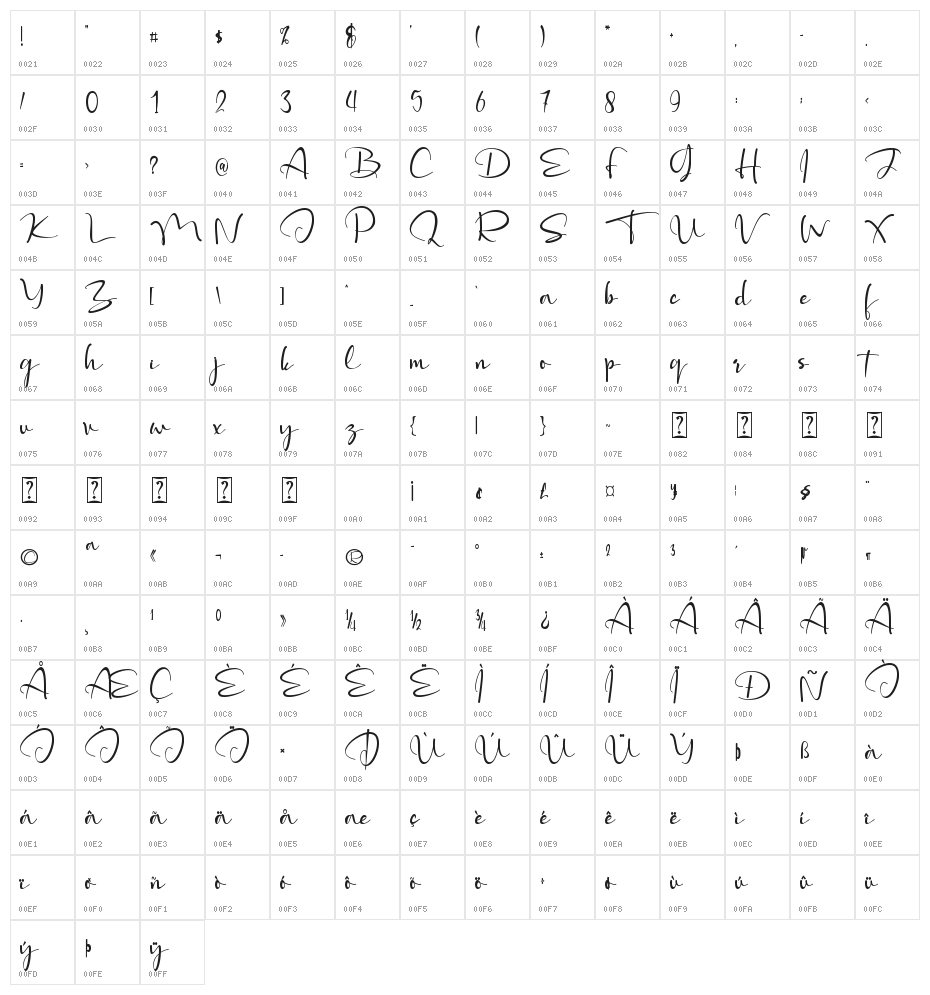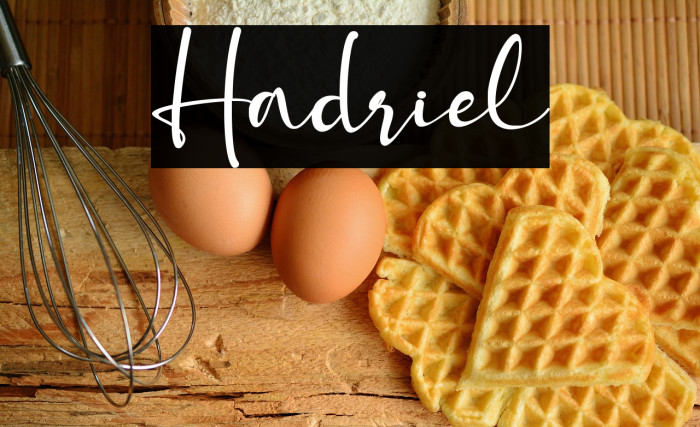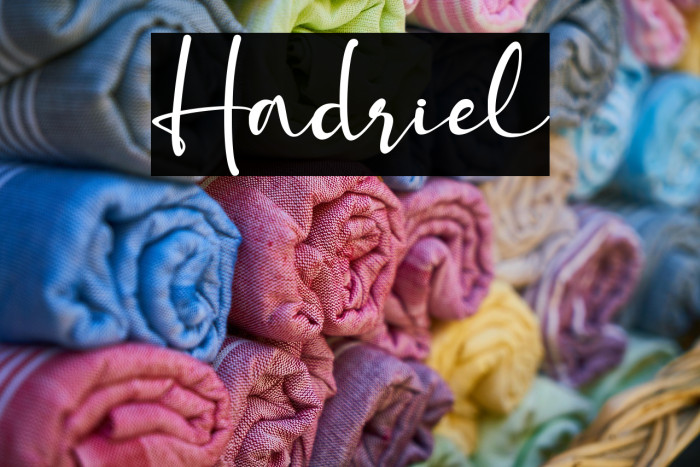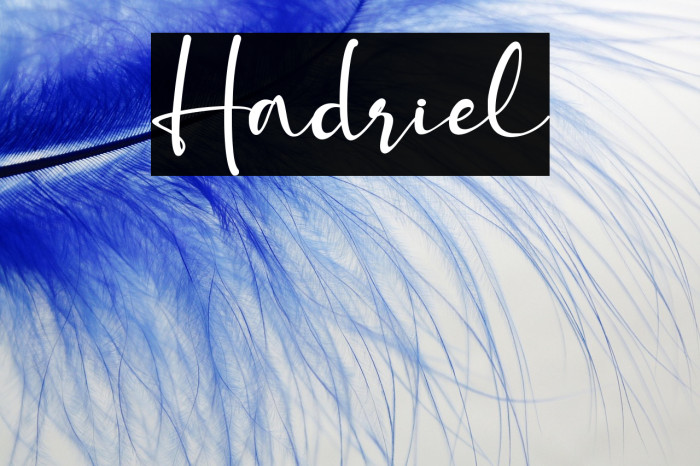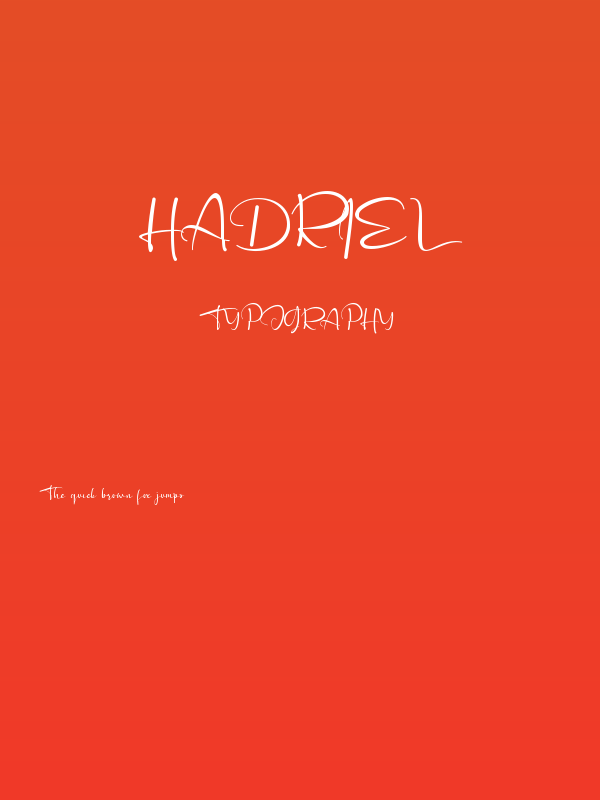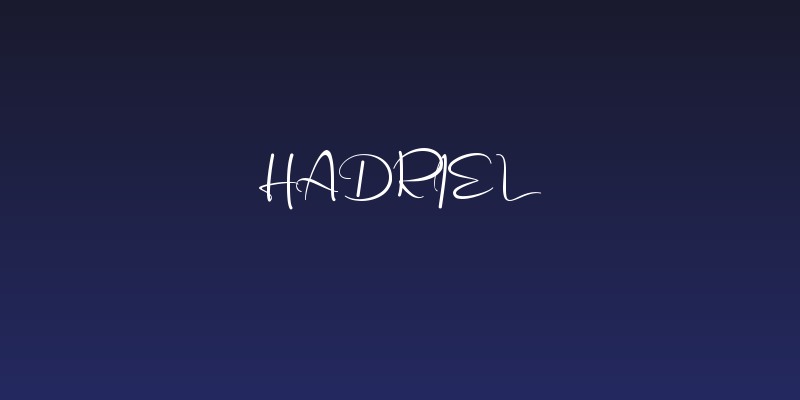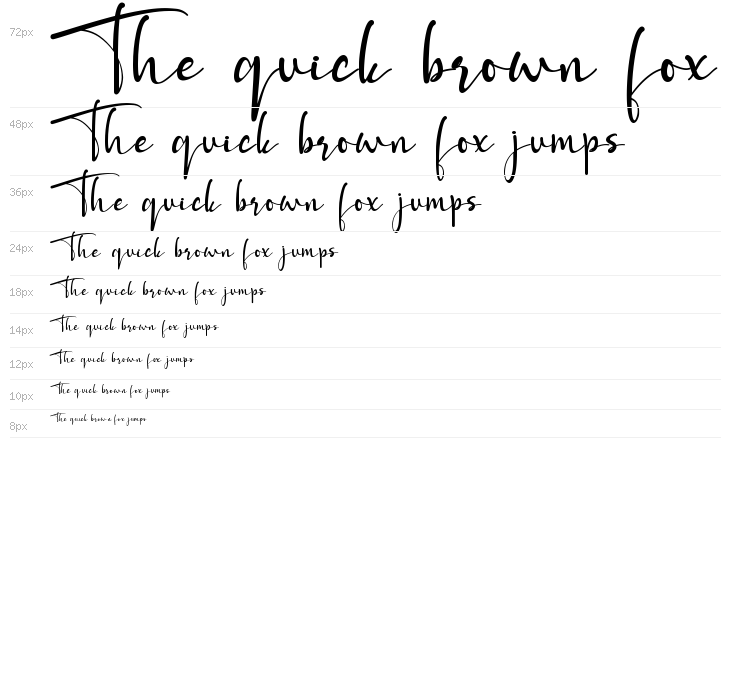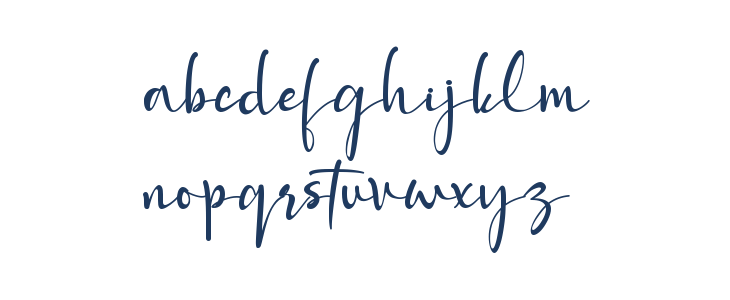
Hadriel Font
Hadriel Description
This font exudes a lively and dynamic energy with its flowing, cursive style. The uppercase letters are characterized by their elegant loops and swashes, creating a sense of movement and grace. The lowercase letters maintain a consistent fluidity, with some letters extending below the baseline, adding to its whimsical charm. The numerals are bold and clear, ensuring readability while maintaining the overall aesthetic. Special characters are thoughtfully designed to complement the script style, making it versatile for various uses. This font is ideal for projects that require a personal touch, such as invitations, greeting cards, or branding that seeks to convey elegance and creativity.
| Use Case | Headlines, Logos, Invitations |
| Proposed Projects | Ideal for invitations, greeting cards, branding, and creative projects. |